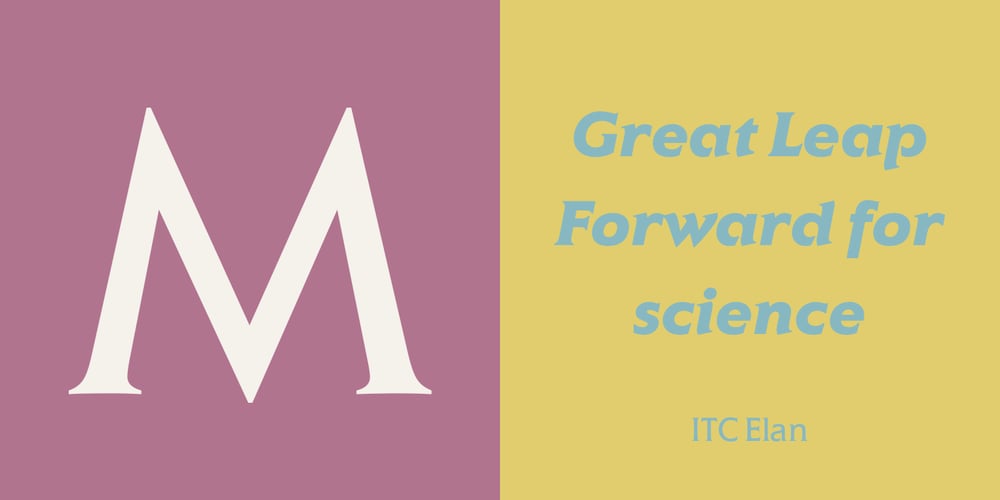
ITC Elan Font Family was designed by Albert Boton and published by ITC. ITC Elan contains 10 styles and family package options. ITC Élan combines a gothic simplicity with elegance in a distinctive yet subtle typeface design. There is also a feeling of architectural strength which is derived primarily from an optically even line-weight and a sense of vertical stress. The small, almost Latin, serifs add distinction at both display and text sizes. The large x-height, minimum stroke variance, and open counters are ideal design traits for typeface legibility. Additional characteristics which distinguish ITC Élan are the splayed M” and bowls which do not quite close in the “a,” “b” and several other letters. In contrast to the roman, there is almost a calligraphic playfulness to the italic. ITC Élan is the second ITC typeface from Albert Boton of France, who also designed ITC Eras. ITC Élan comes in four weights, book, medium, bold, and black, each with a corresponding italic.”